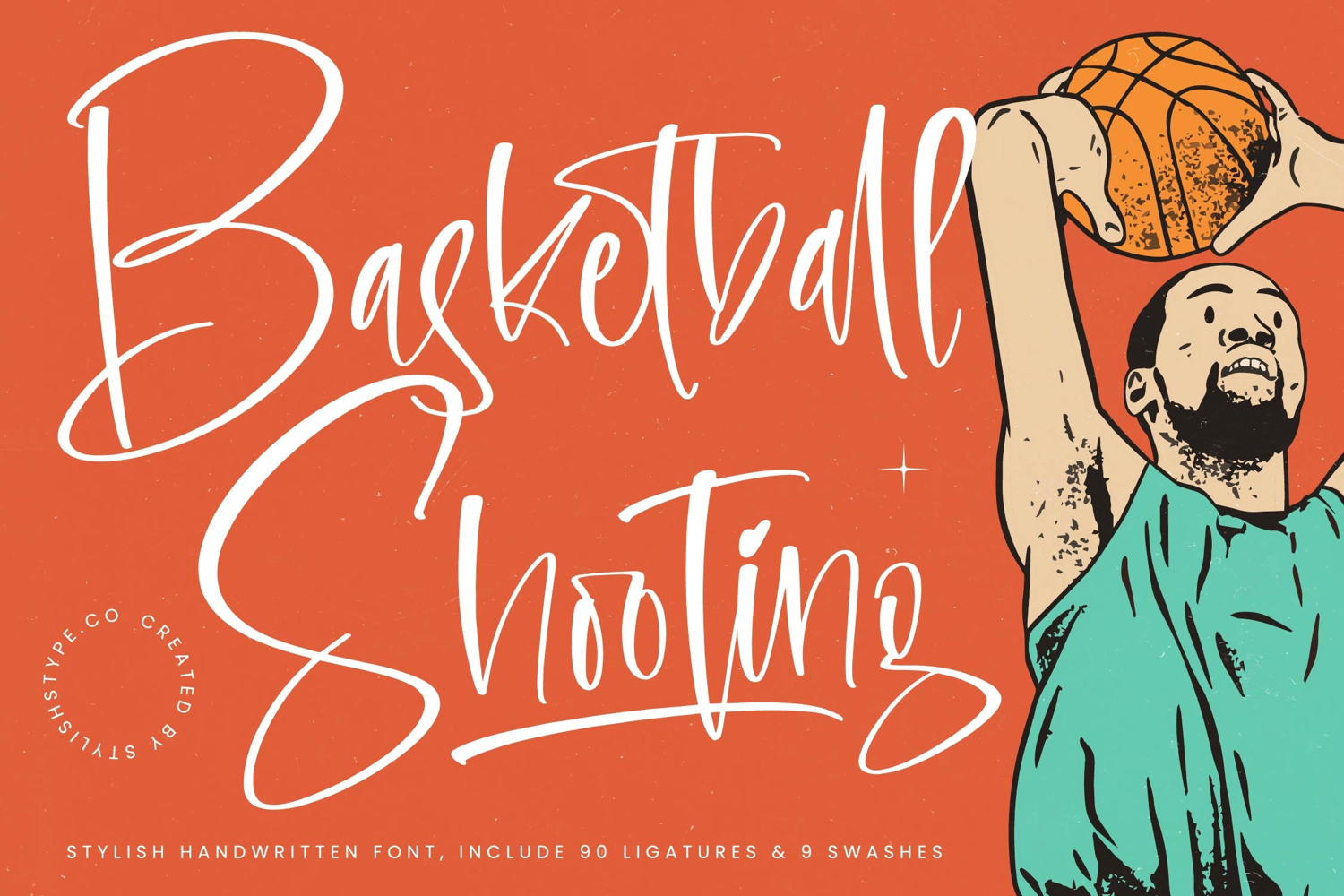
Basketball Shooting - Stylish Handwritten Font
Basketball Shooting is a stylish handwritten font that combines dynamic energy, modern handwritten flow, and a touch of playful authenticity. Featuring 90 ligatures and 9 swashes, this font offers wide creative flexibility, enabling designers to craft unique and expressive lettering compositions that feel both energetic and professional. Each stroke is drawn with a bold yet natural rhythm, giving your typography a fresh, stylish, and impactful character.
The sporty yet elegant strokes of Basketball Shooting adapt seamlessly across digital platforms and print applications, making it ideal for a variety of creative projects. Perfect for branding, sports campaigns, editorial spreads, event posters, youth apparel packaging, and social media content, this handwritten font ensures your designs carry a strong, memorable personality.
The true strength of Basketball Shooting lies in its ability to communicate energy and identity. Its handwritten strokes feel casual yet confident, while its ligatures and swashes allow you to fine-tune the tone — from dynamic and bold to stylish and trendy. This versatility makes it especially suitable for industries like sports, lifestyle, youth culture, fashion, and creative advertising, where visual impact and brand personality are key.
More than just a decorative font, Basketball Shooting is a storytelling tool. It transforms simple words into captivating visuals, ensuring that your message is delivered with energy, personality, and a human touch. From sports team logos and advertising campaigns to event promotions and editorial layouts, this font ensures your creative projects stand out with style and confidence.
If you’re looking for a handwritten script that merges sporty energy, modern design, and professional usability, Basketball Shooting is the perfect choice. It enhances your creative work with authenticity, versatility, and dynamic charm, ensuring every project leaves a lasting impression.